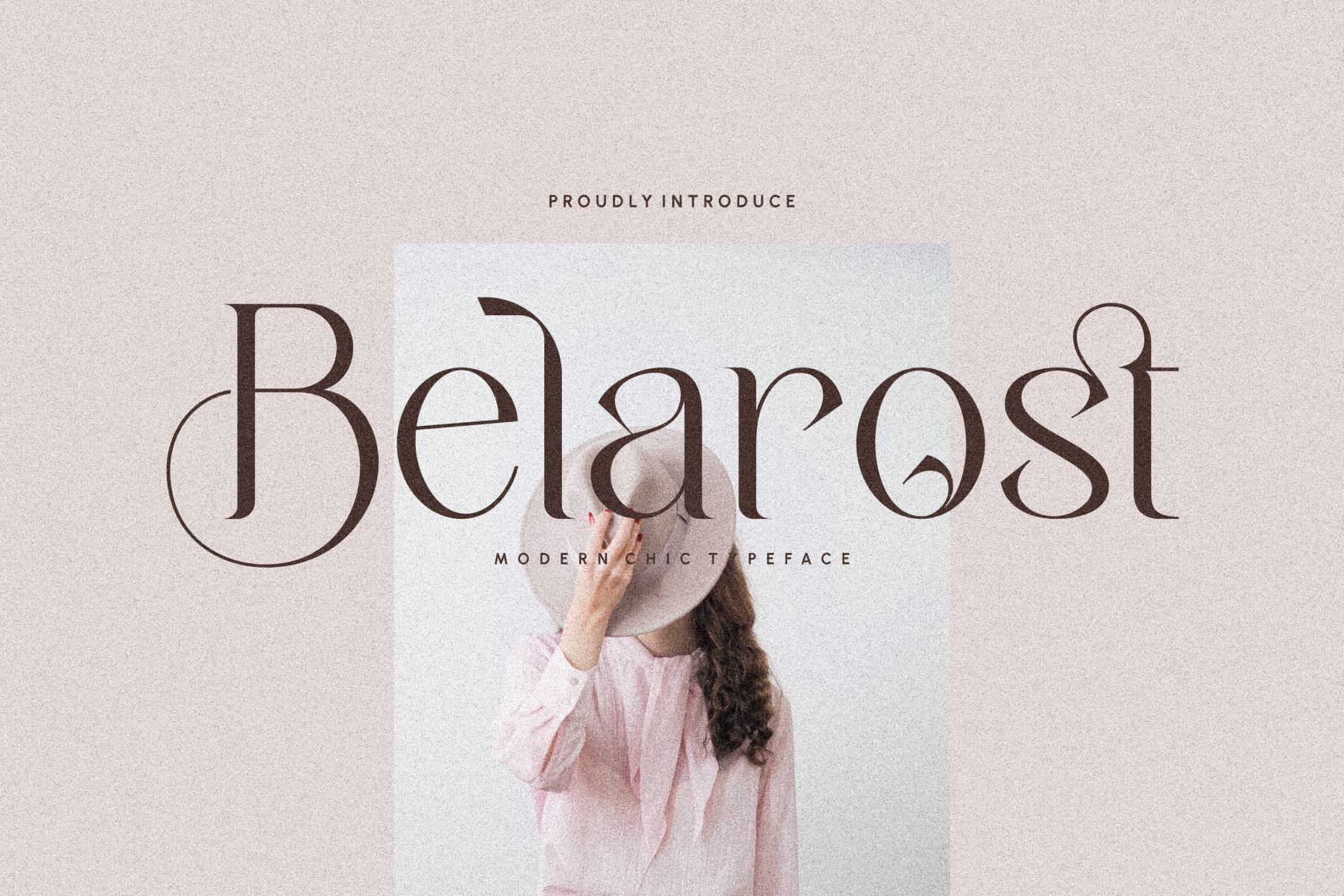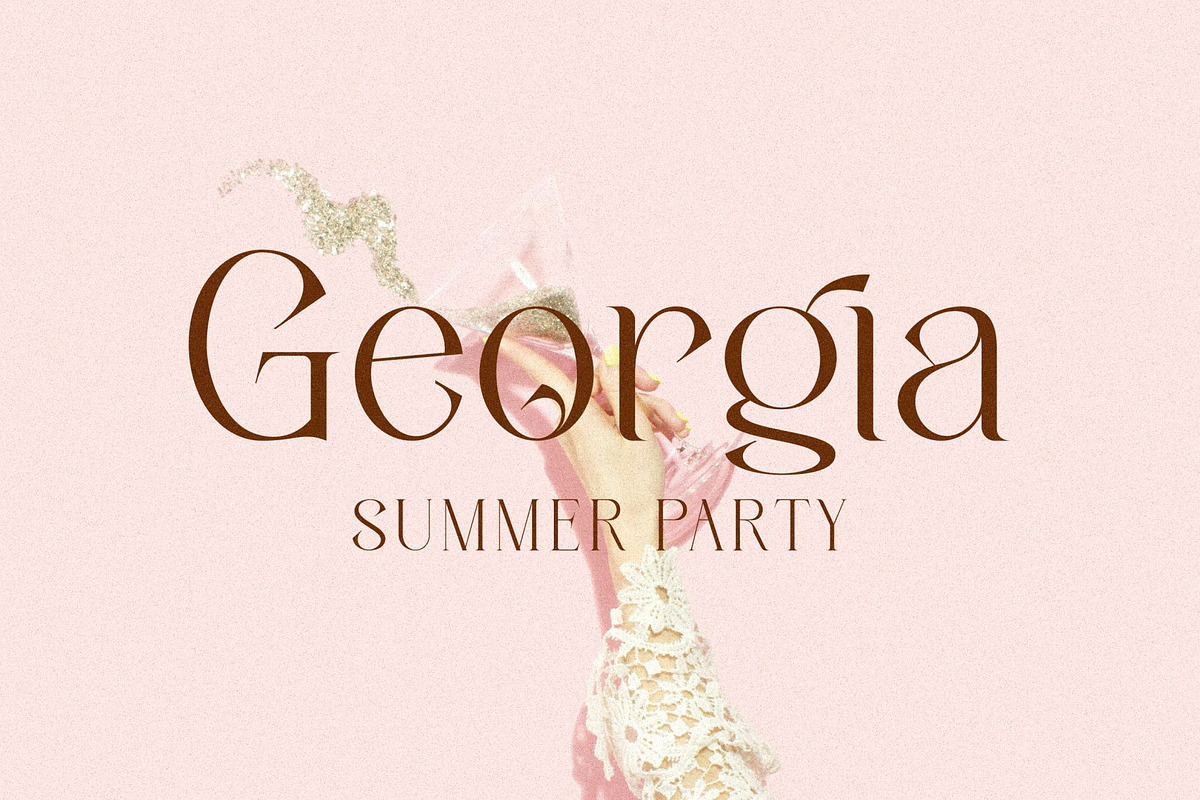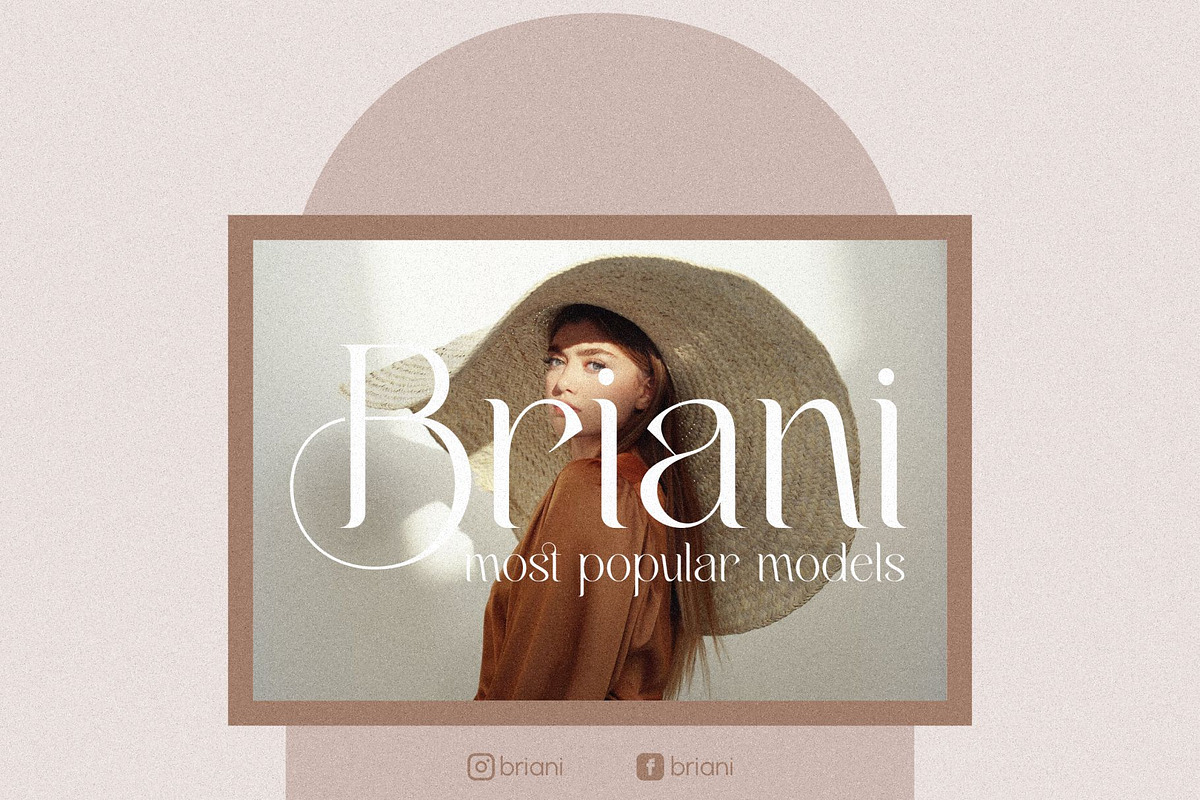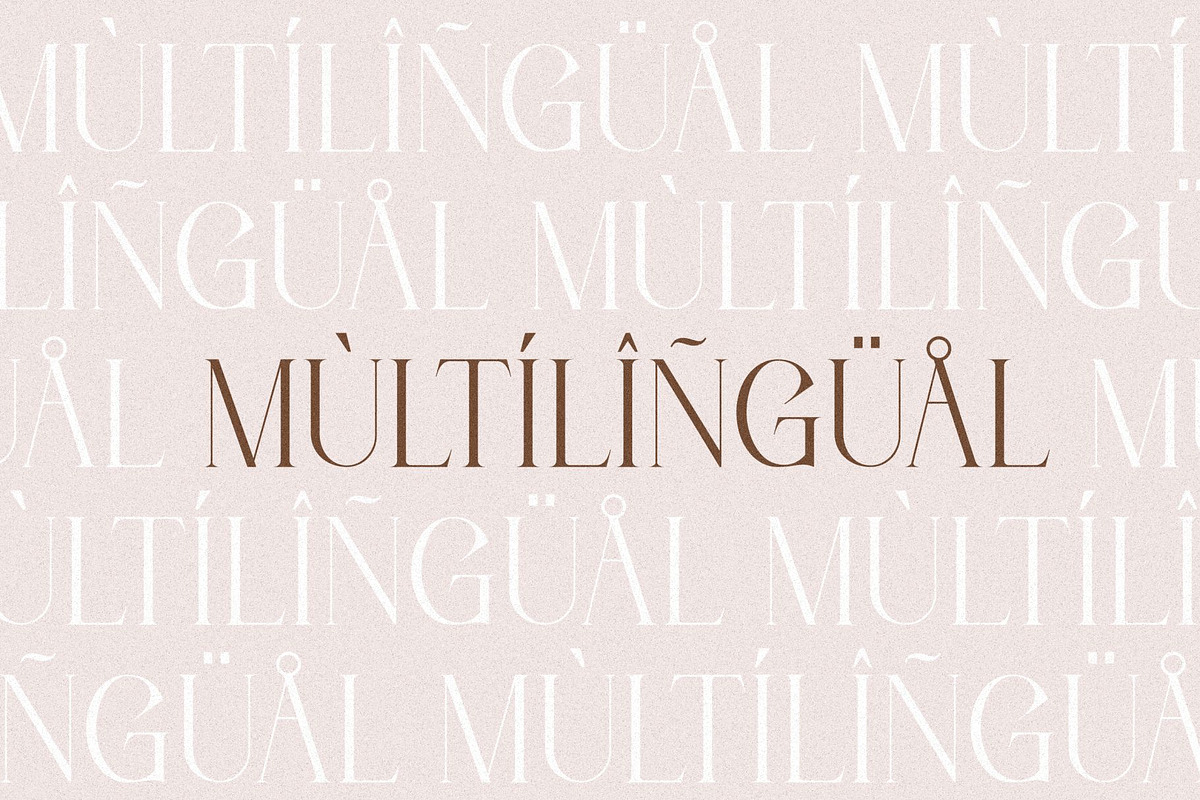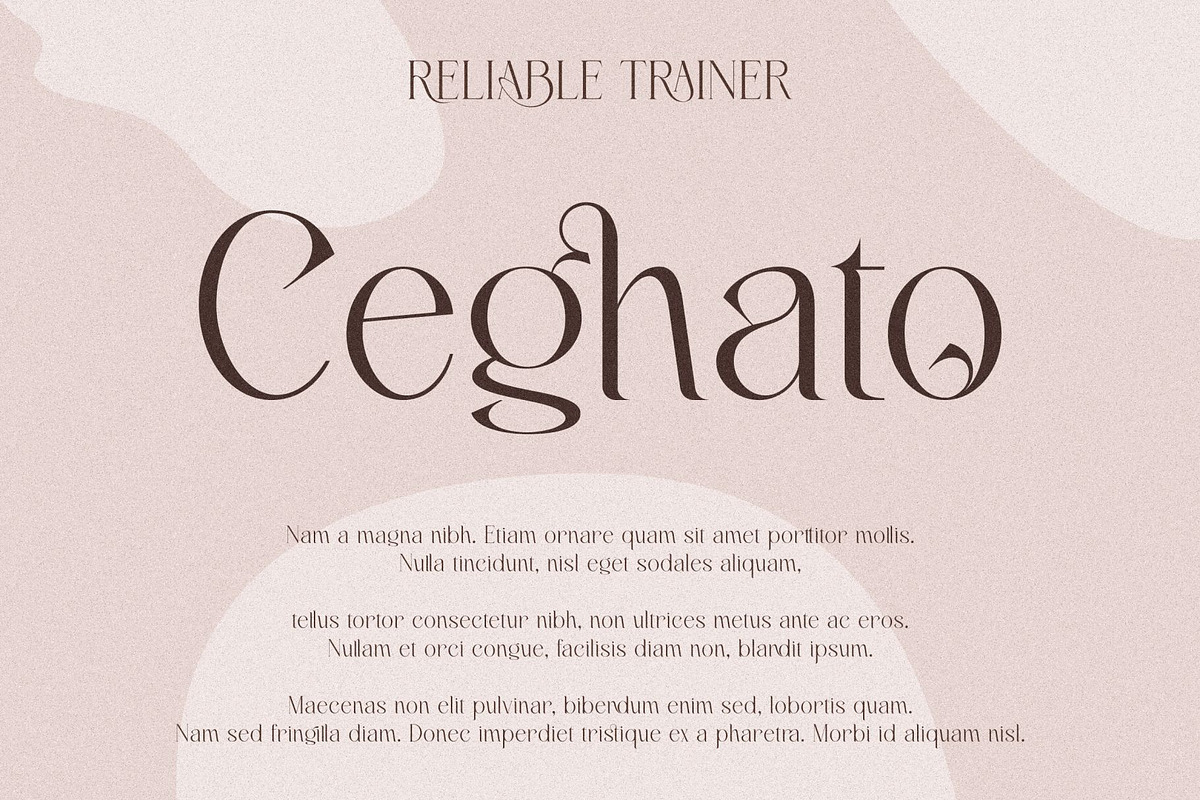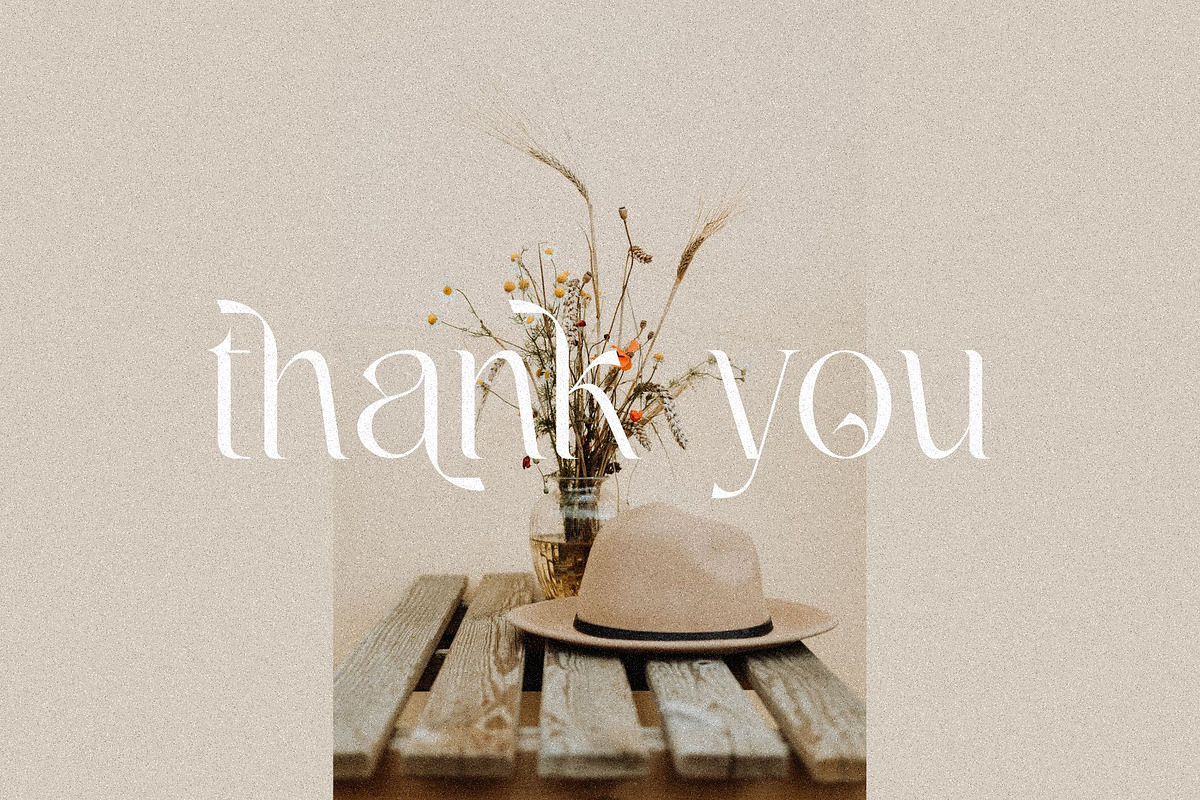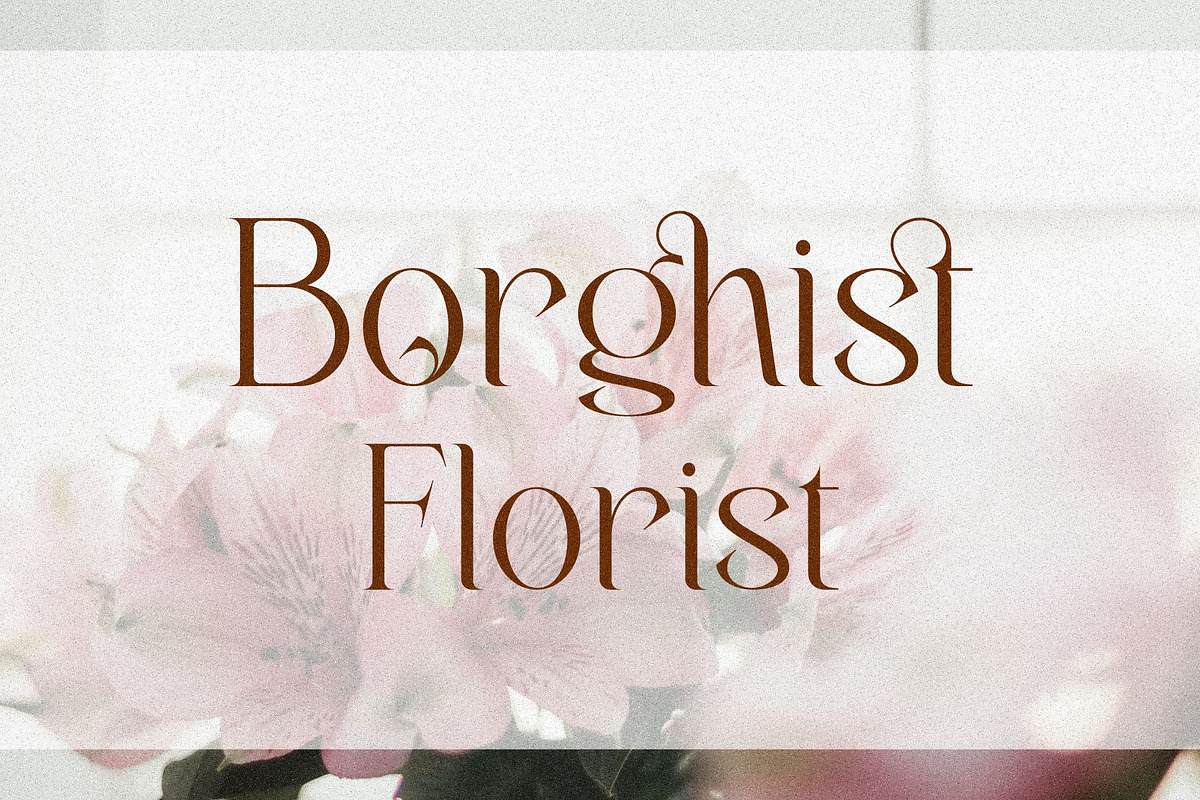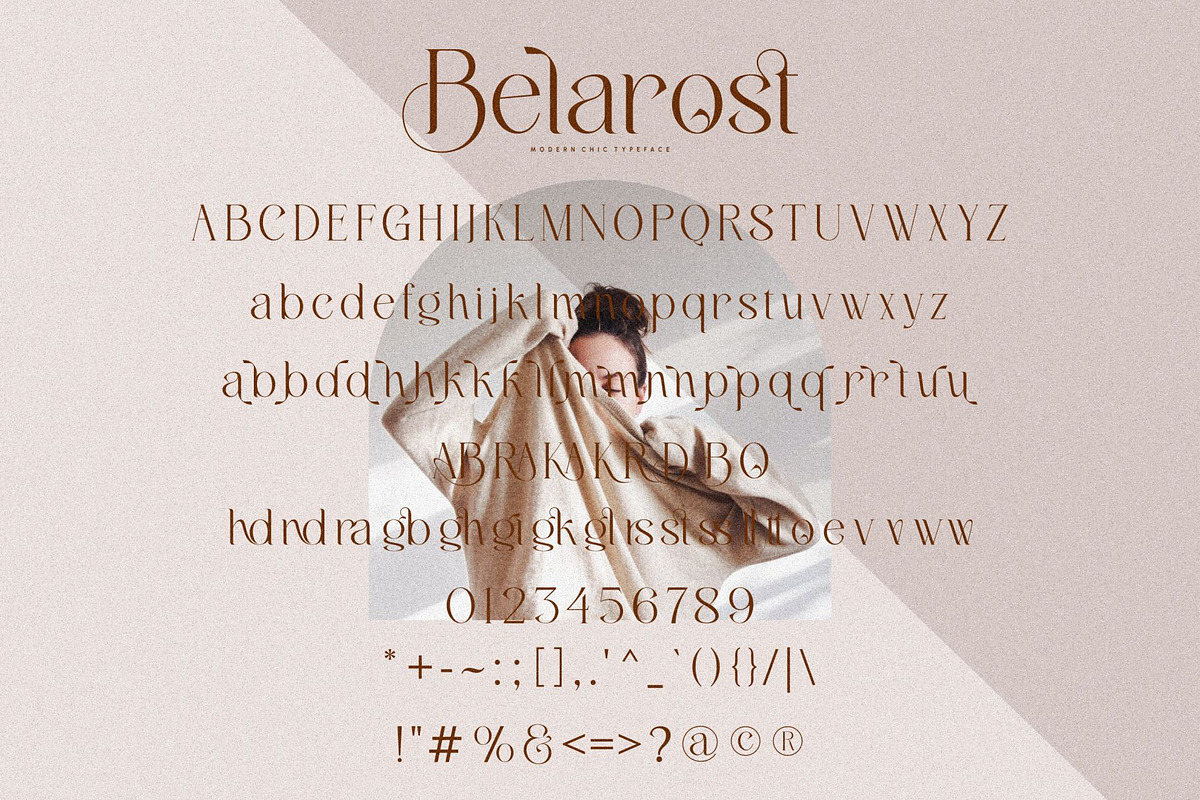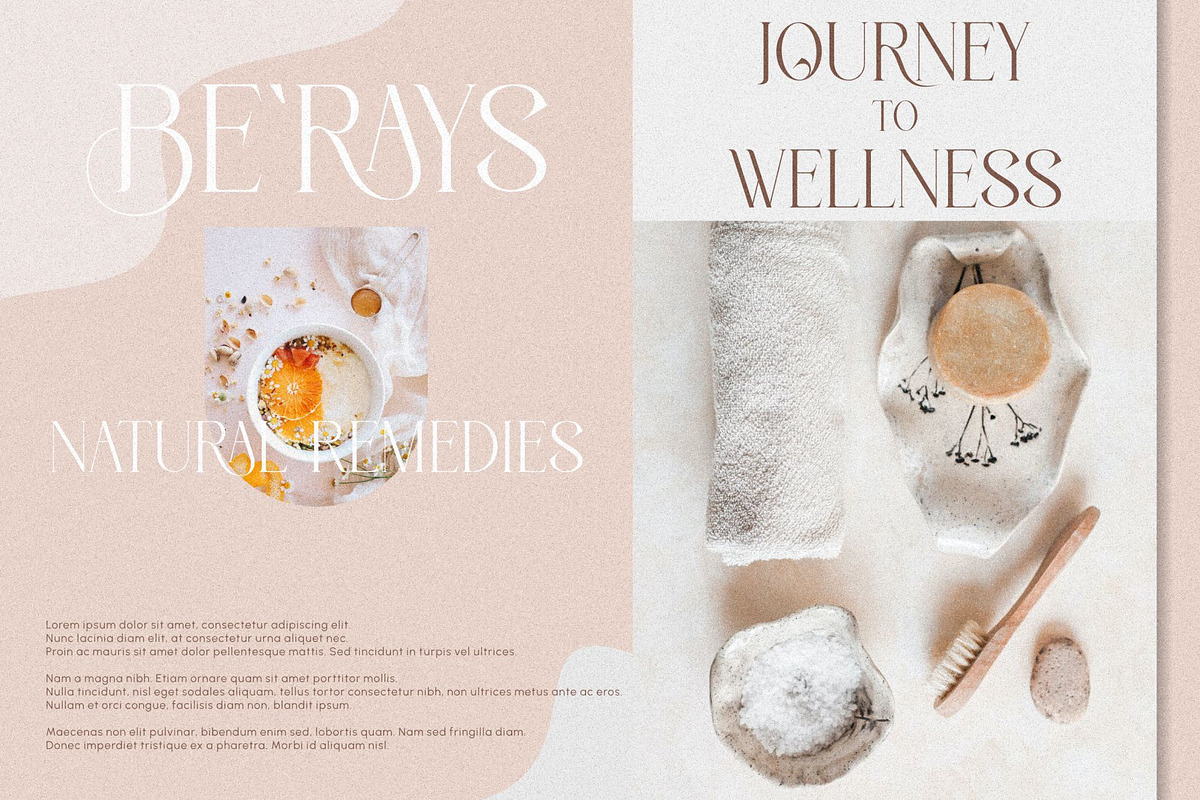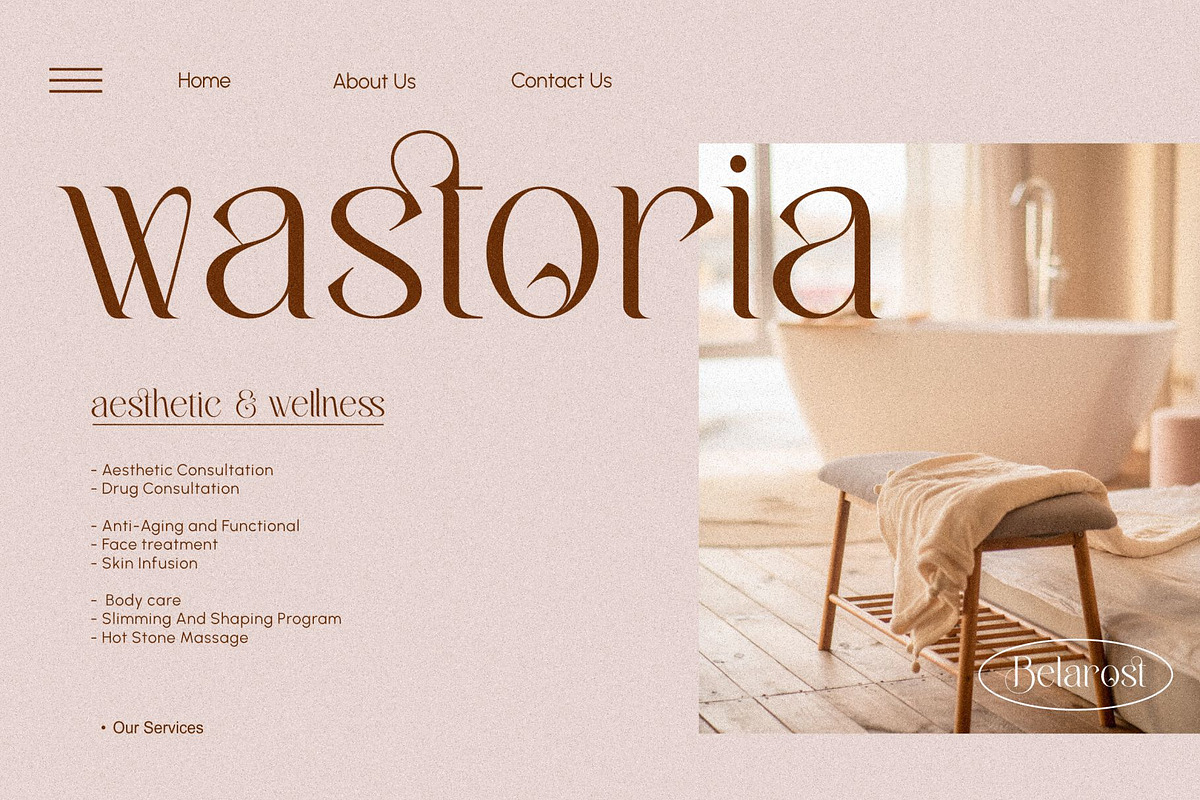
Belarost _ modern chic typeface
Proudly Introducing our new font. ''Belarost'' Modern Chic Typeface.
Belarost is designed in a very refined and modern style. by accessing many alternative fonts and their ligatures that will add to the perfection of each letter. The Belarost font is perfect for branding projects, fashion, logos, magazine imagery, jewelry, wedding invitations, posters, apparel, packaging, website headers or simply as a stylish text overlay onto any background image.